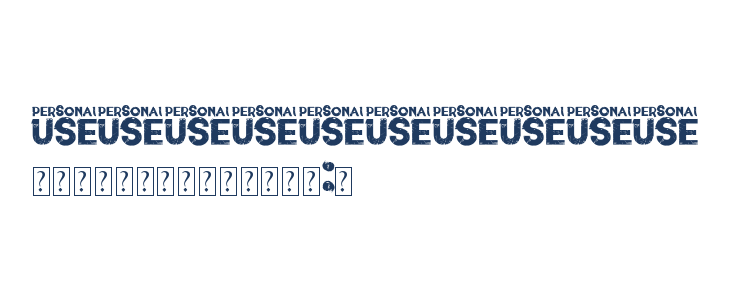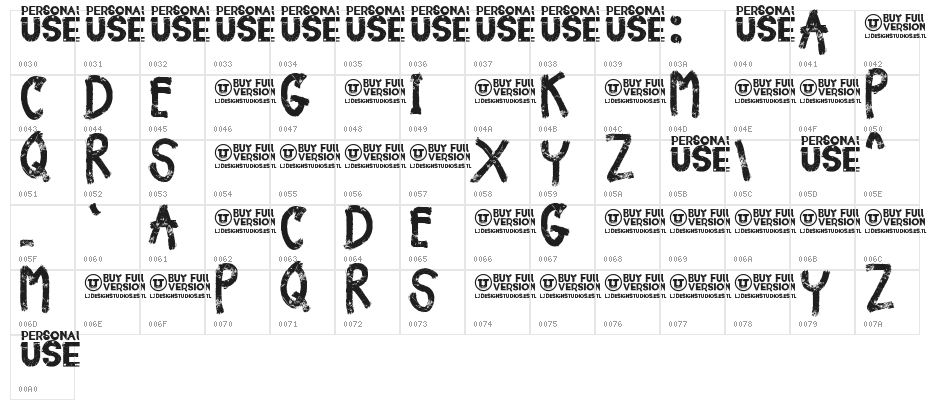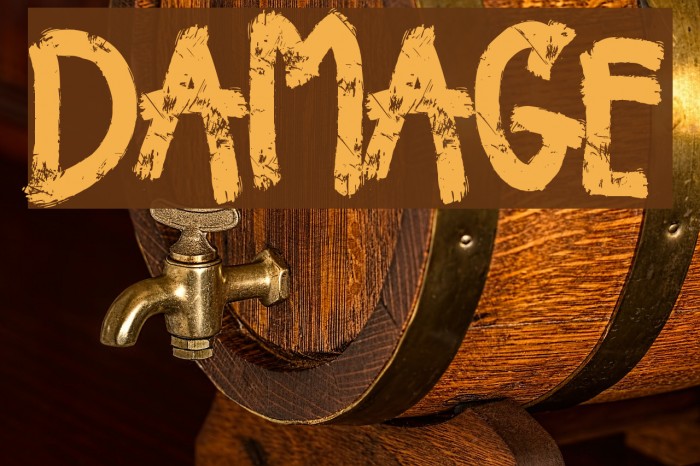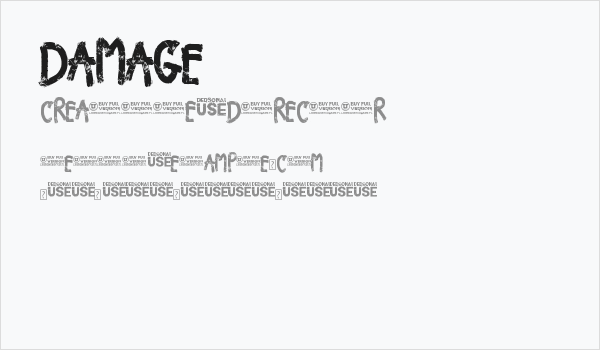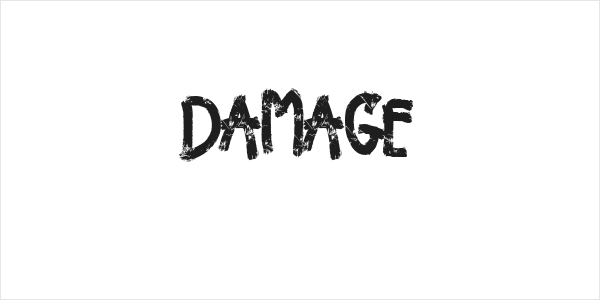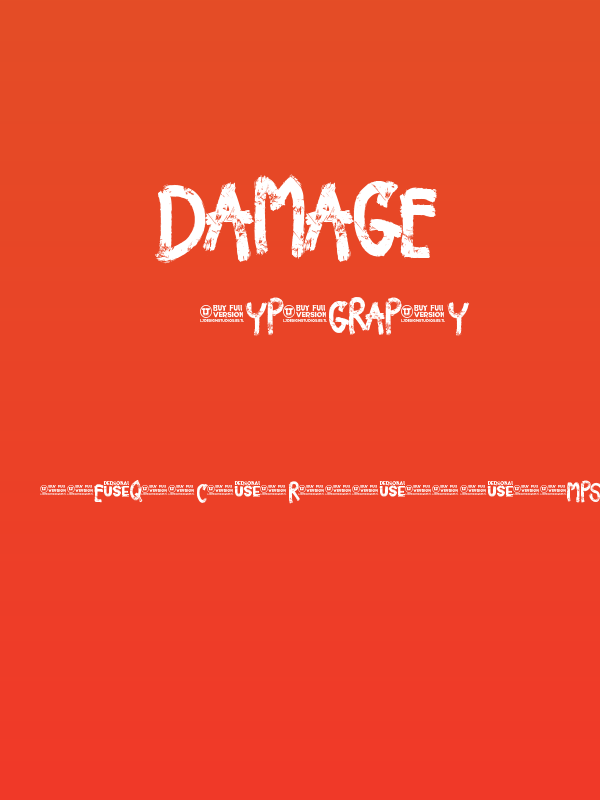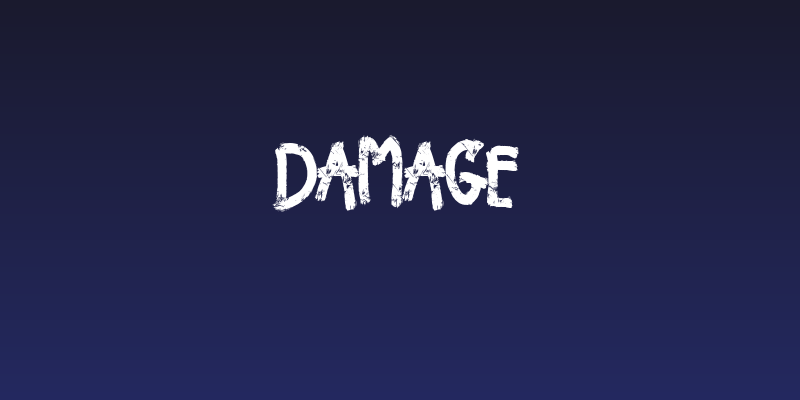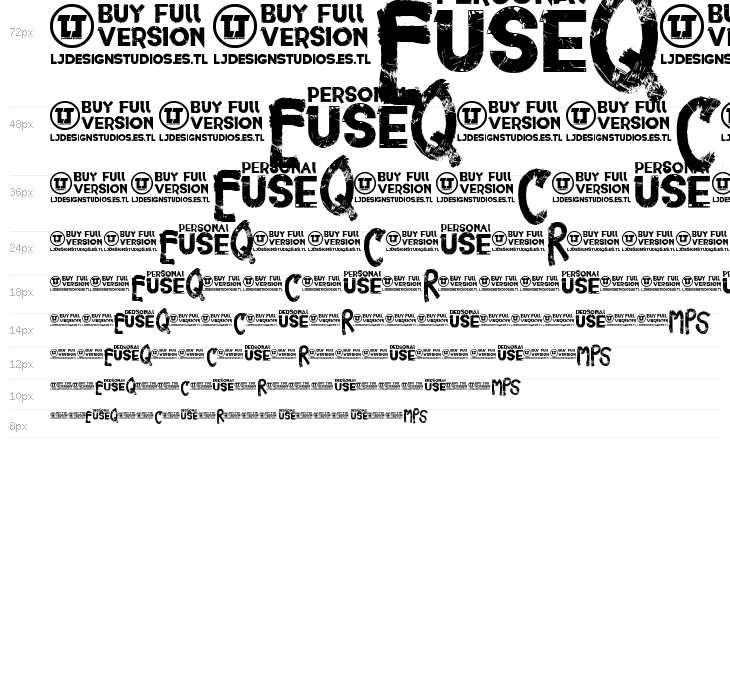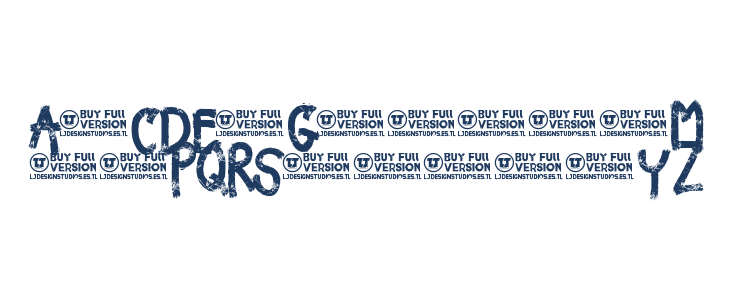
Damage Font
Damage Description
This font features a distressed and grungy style, with each character appearing as if it has been weathered or eroded. The texture gives it a rugged, raw appearance, making it stand out with a unique personality. The letters are bold and have an uneven, hand-drawn quality, adding to the overall edgy aesthetic. This font is ideal for projects that require a bold statement or a touch of rebelliousness. The irregularities in the characters create a dynamic visual interest, perfect for capturing attention.
| Overall Style | Grunge, Edgy |
| Proposed Projects | Ideal for album covers, posters, streetwear branding, or any project needing an edgy, rebellious look. |